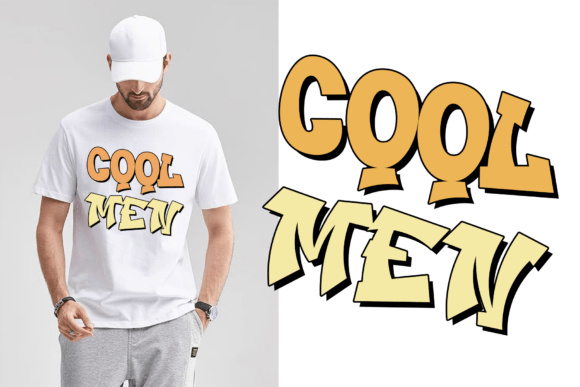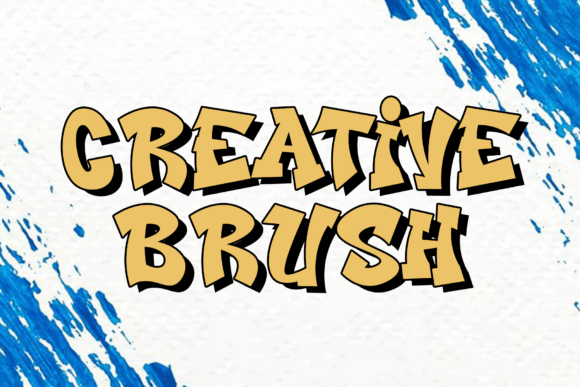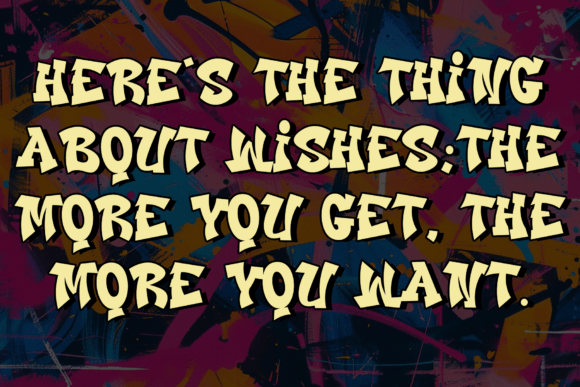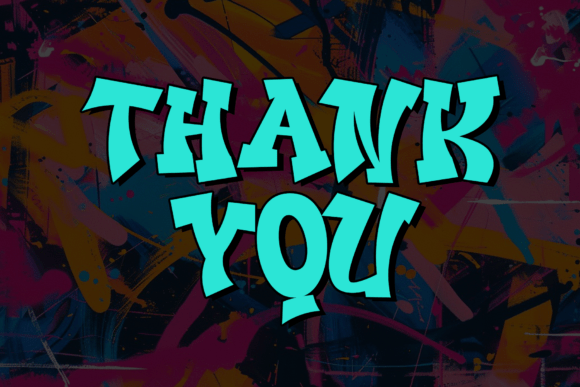
Introducing Gemstone Font: The Perfect Blend of Clarity and Relaxed Charm
In the world of typography, finding the right font can make all the difference in the success of a design project. Whether you’re working on a headline, poster, packaging, or branding, the font you choose sets the tone and personality of your message. If you’re looking for a font that blends clarity with a relaxed, approachable vibe, look no further than Gemstone Font. This neat and casual display font is designed to bring a modern yet laid-back feel to your designs, making it perfect for a wide range of creative projects.
Clean Lines and Friendly Letterforms
Gemstone Font boasts clean lines and friendly letterforms that immediately capture the attention of viewers. Its well-crafted design ensures that each character is not only aesthetically pleasing but also highly legible. This balance of style and readability makes Gemstone Font an excellent choice for designers and crafters who want their work to stand out without compromising on clarity. Whether you’re creating a bold headline or a subtle brand logo, Gemstone Font provides the perfect blend of form and function.
Gemstone Font’s versatility is one of its most compelling features. Its unique blend of modernity and casual charm makes it suitable for a wide range of design projects. Here are some of the ways you can use Gemstone Font to elevate your designs:
- Headlines: Create eye-catching headlines that demand attention with Gemstone Font’s bold and clean lines.
- Posters: Add a touch of personality to your posters with Gemstone Font’s playful energy and relaxed vibe.
- Packaging: Make your product stand out on store shelves with Gemstone Font’s modern and laid-back aesthetic.
- Branding: Establish a strong brand identity with Gemstone Font’s unique blend of style and approachability.
A Balanced Structure and Playful Energy
What sets Gemstone Font apart from other display fonts is its balanced structure and playful energy. The font’s designer has carefully crafted each character to ensure that it not only looks great but also feels approachable and friendly. This balance of structure and playfulness brings a sense of personality to any project, making it perfect for designers and crafters who want to add a touch of whimsy to their work.
Why Choose Gemstone Font?
With so many fonts available, why choose Gemstone Font for your next design project? Here are just a few reasons why Gemstone Font stands out from the crowd:
- Unique blend of style and readability: Gemstone Font offers the perfect balance of form and function, making it ideal for designs that call for both style and clarity.
- Versatility: Gemstone Font can be used for a wide range of design projects, from headlines and posters to packaging and branding.
- Modern yet laid-back: Gemstone Font’s unique blend of modernity and casual charm makes it perfect for designers and crafters who want to add a touch of personality to their work.